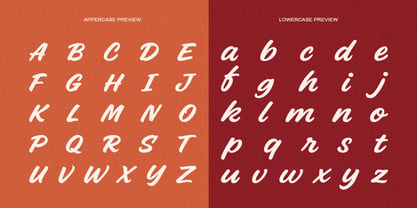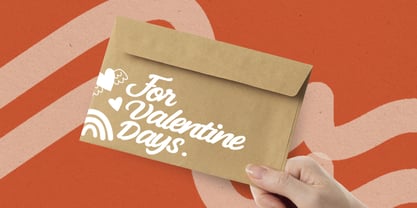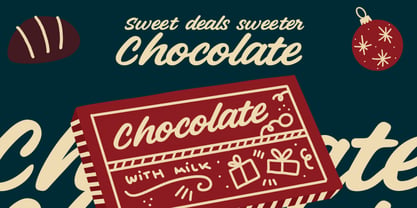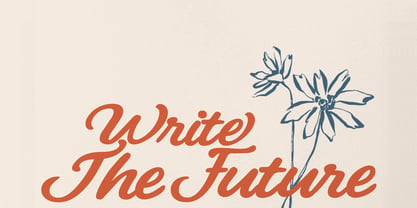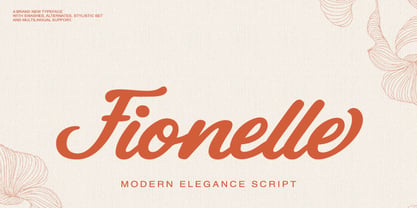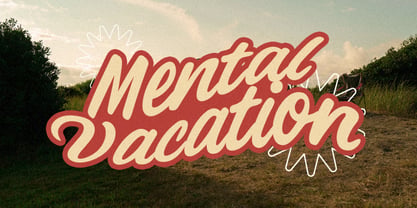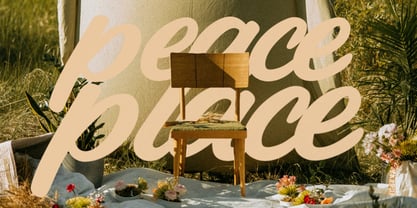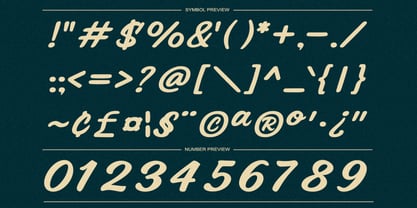
Fionelle
by Rasio Studio
The Fionelle Font Family was designed by Fajar Indra and published by Rasio Studio. Fionelle contains 1 styles. More about this family
Fionelle is a modern script font that captures the beauty of elegant handwriting with a refined, flowing rhythm. Each stroke combines smooth curves and balanced spacing, giving every word a graceful and natural feel. Its stylish form and subtle contrast bring a touch of sophistication to any visual composition. A brand new typeface with swashes, alternates, stylistic set, and multilingual support, Fionelle offers creative flexibility for unique and personalized designs. Featuring uppercase, lowercase, numerals, and punctuation, this font is perfect for branding, invitations, packaging, and editorial projects that require a contemporary yet timeless handwritten aesthetic.
Designers: Fajar Indra
Foundry: Rasio Studio